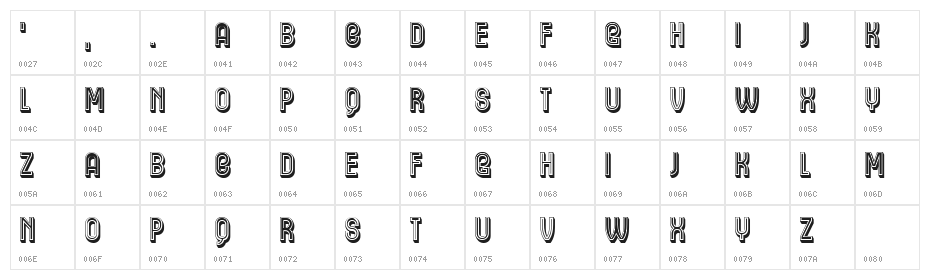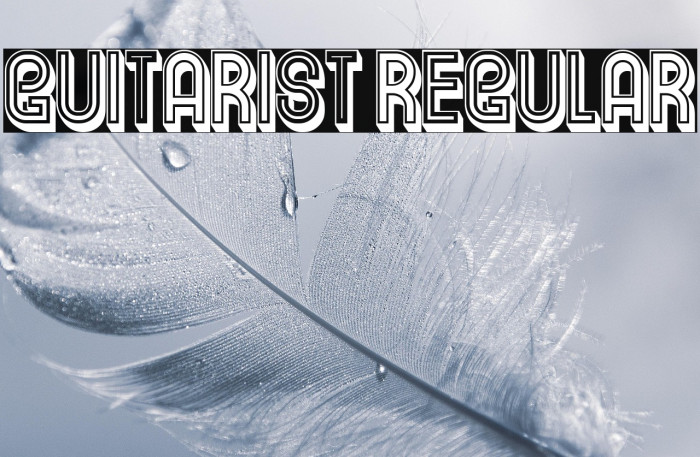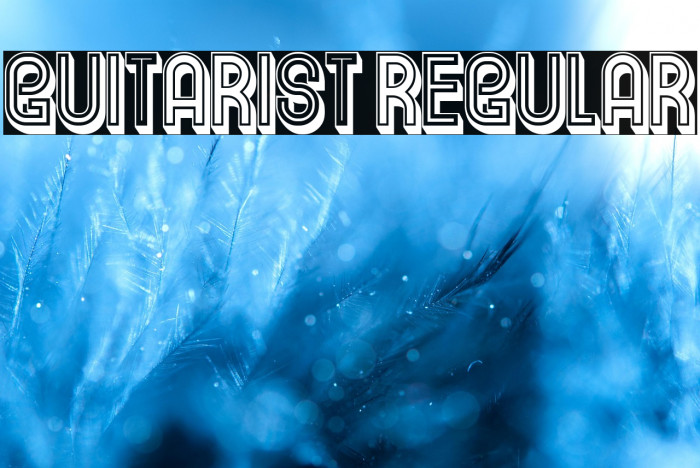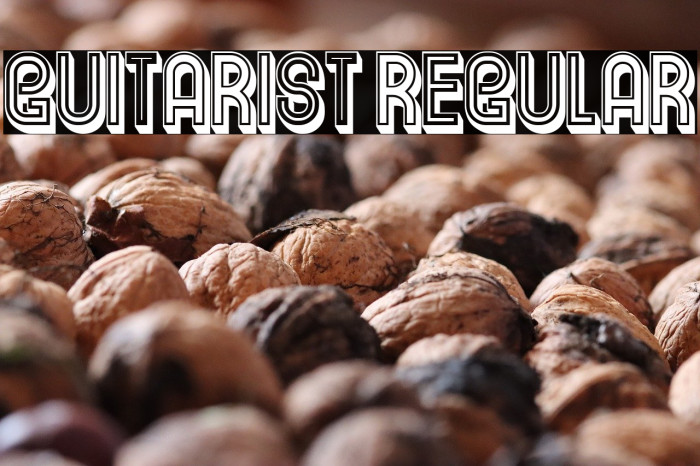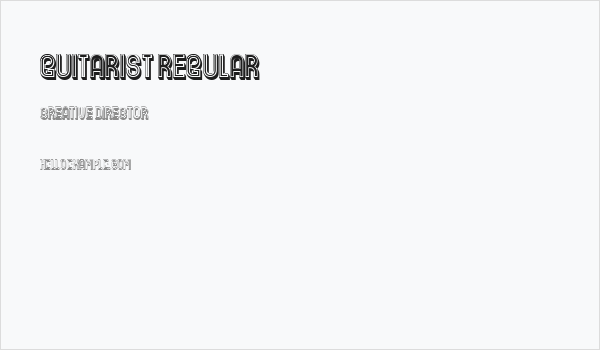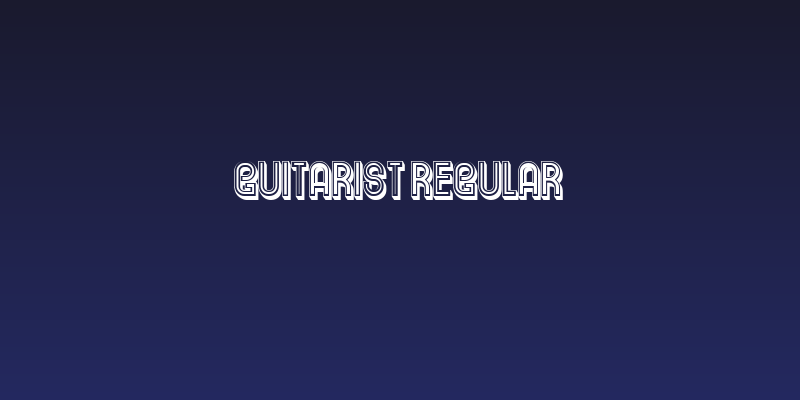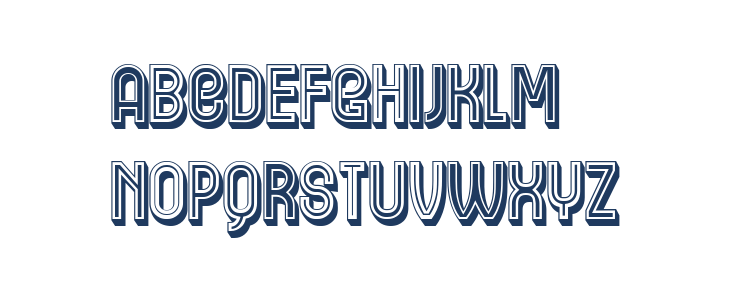
Guitarist Regular Font
Guitarist Regular Description
This font features a bold, decorative style with a three-dimensional effect, achieved through a combination of thick outlines and shadowing. The uppercase letters are designed with a strong geometric structure, giving them a modern and impactful appearance. The font's unique style is characterized by its layered look, which adds depth and visual interest. The characters are evenly spaced, ensuring readability while maintaining a striking presence. This font is ideal for projects that require a bold statement, such as posters, headlines, and branding materials. Its distinctive design makes it suitable for creative and artistic applications where a touch of flair is desired.
| Proposed Projects | Ideal for posters, headlines, branding materials, and creative projects requiring a bold statement. |